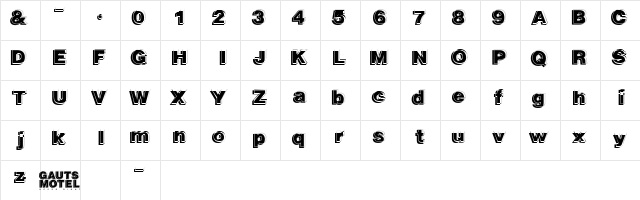
GautsMotelUpperRight Regular
Design Context for GautsMotelUpperRight Typeface
GautsMotelUpperRight offers clean, dependable letterforms without strong stylistic allegiance, making it a practical choice for designers who need flexibility.